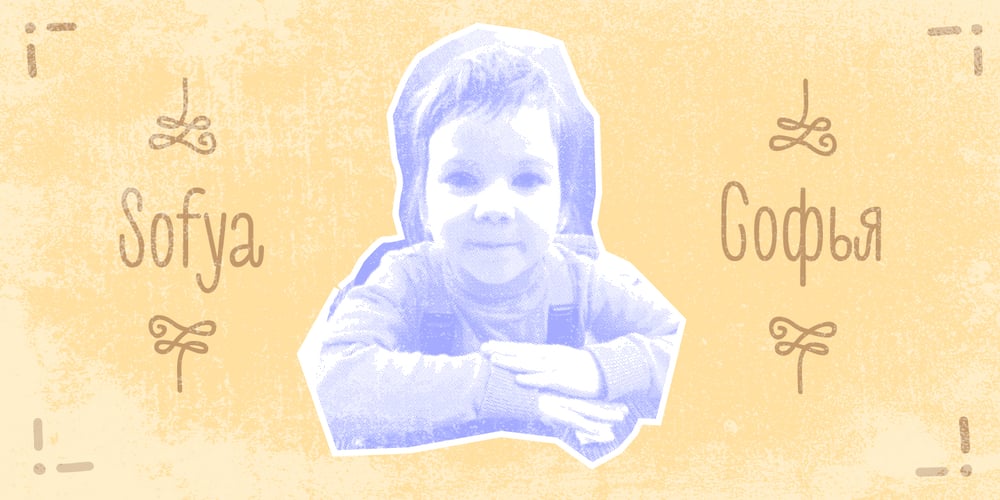
Sofya Font Family was designed by Roman Shchyukin and published by Gaslight. Sofya contains 1 styles and family package options. This funny script font based on the logo which we did. It will look great on the package, restaurant menus, logos and magazine headlines. A large number of ligatures help you vary your design.